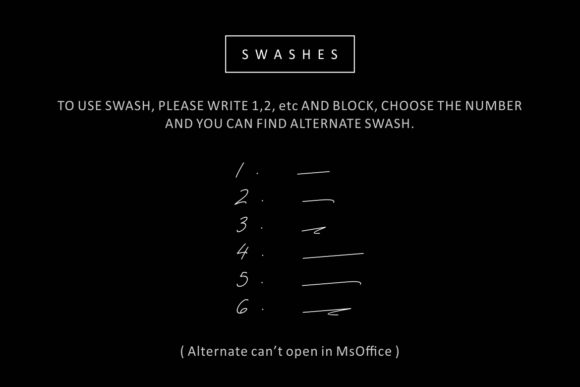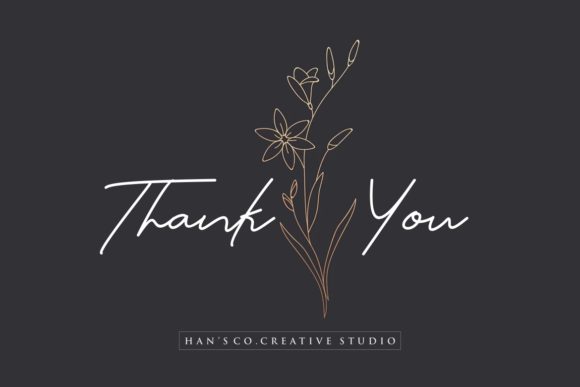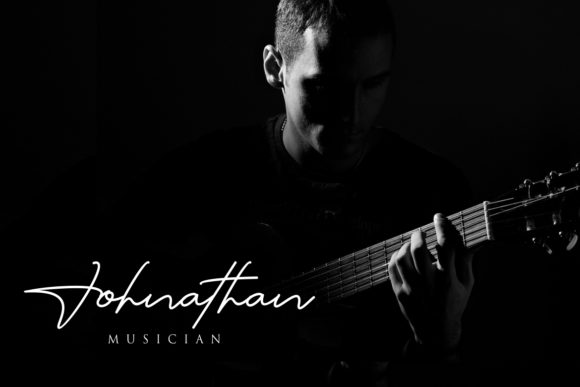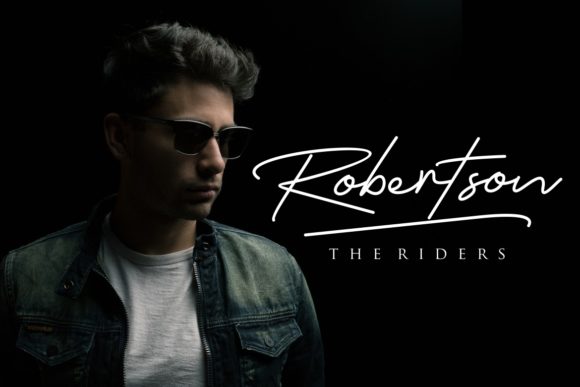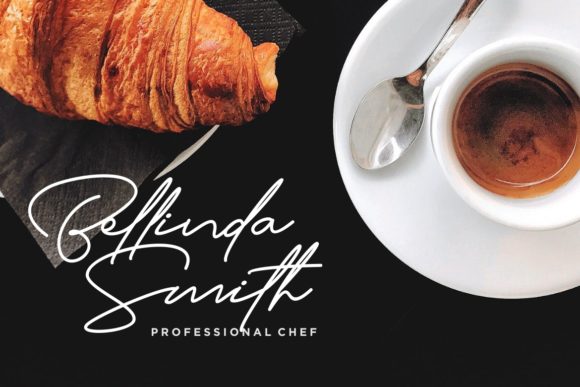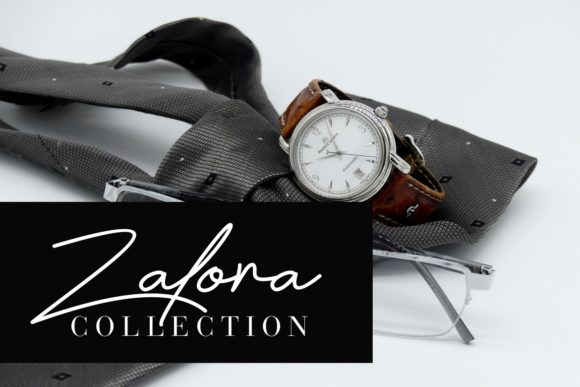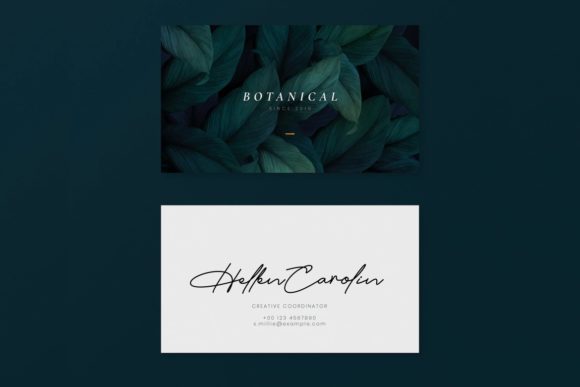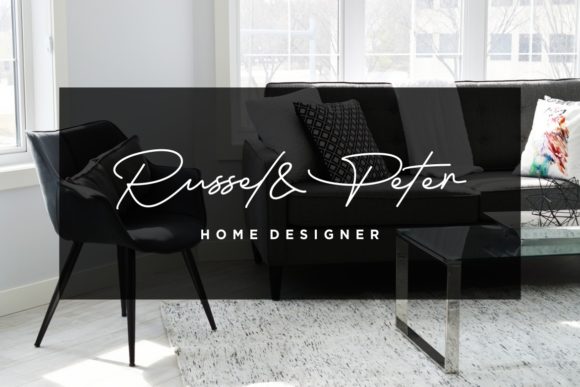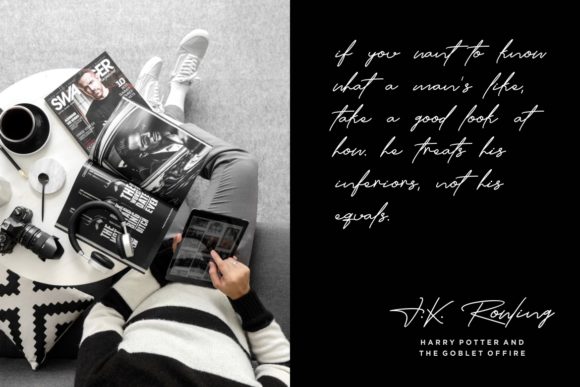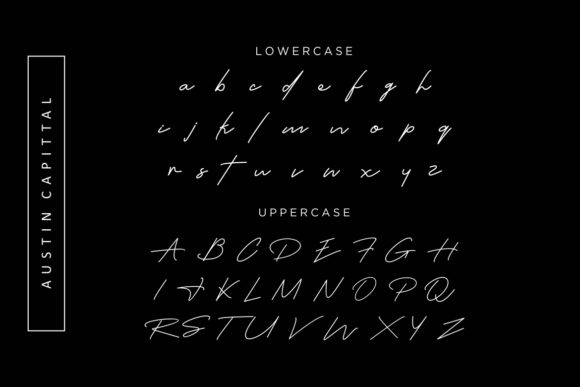
Austin Capittal Font
Austin Capittal is an elegant handwritten signature font with a natural & stylish flow. Great for adding a unique touch to any design project!